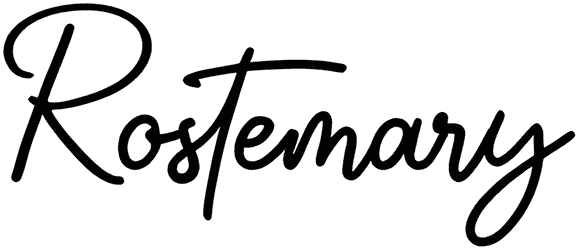
Rostemary Font
What’s the point of an invitation font that’s difficult to read and has a chilly, flowing touch? Yes, you guessed correctly; watermarks, invites, and posters are enticing options to attract attention. Rostemary, which has just 0 and 1 as number charterers, is here to assist you in getting a higher place in design. With a few clicks, you can impress your audience.